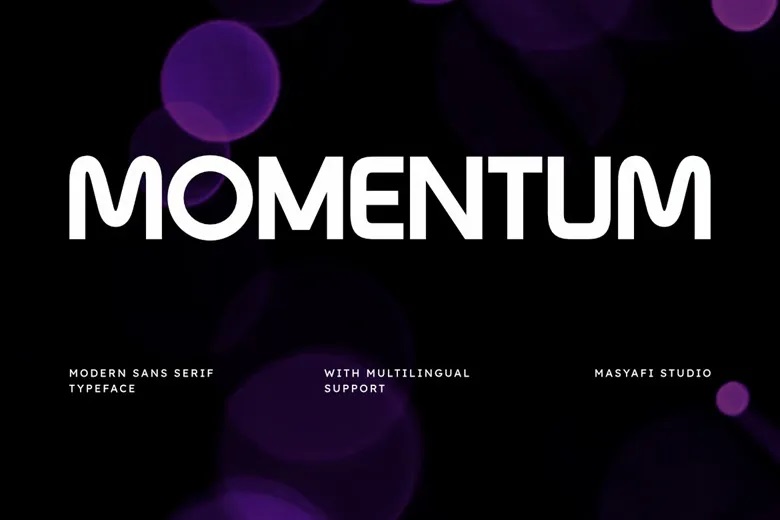
Momentum Font
Momentum by Masyafi Studio is a flexible and contemporary sans serif typeface created for modern creative needs. It features rounded terminals and smooth lines portraying a sense of motion while maintaining a clean modern look. It’s created for designers that need both functionality and flair.
Its balances proportions and structured build makes it a good choice for bold headlines while remaining readable in smaller body text. This font is a perfect choice for making brands that look approachable and professional making it great for startups, fashion labels, tech companies and lifestyle brands that look friendly and modern.